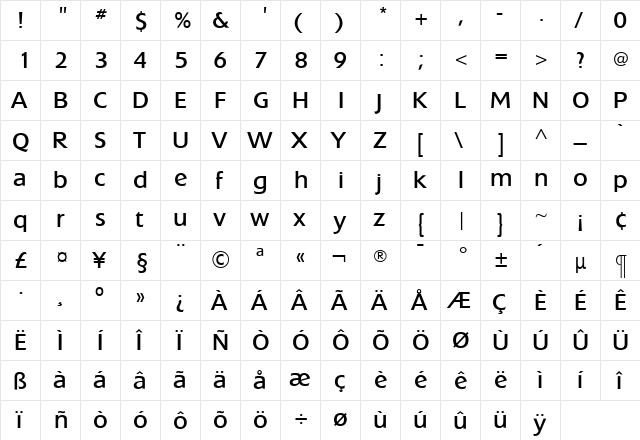
ExtensionBook Roman
Design Context for ExtensionBook Typeface
ExtensionBook is a composed and adaptable typeface that performs quietly and consistently across a wide range of design contexts.